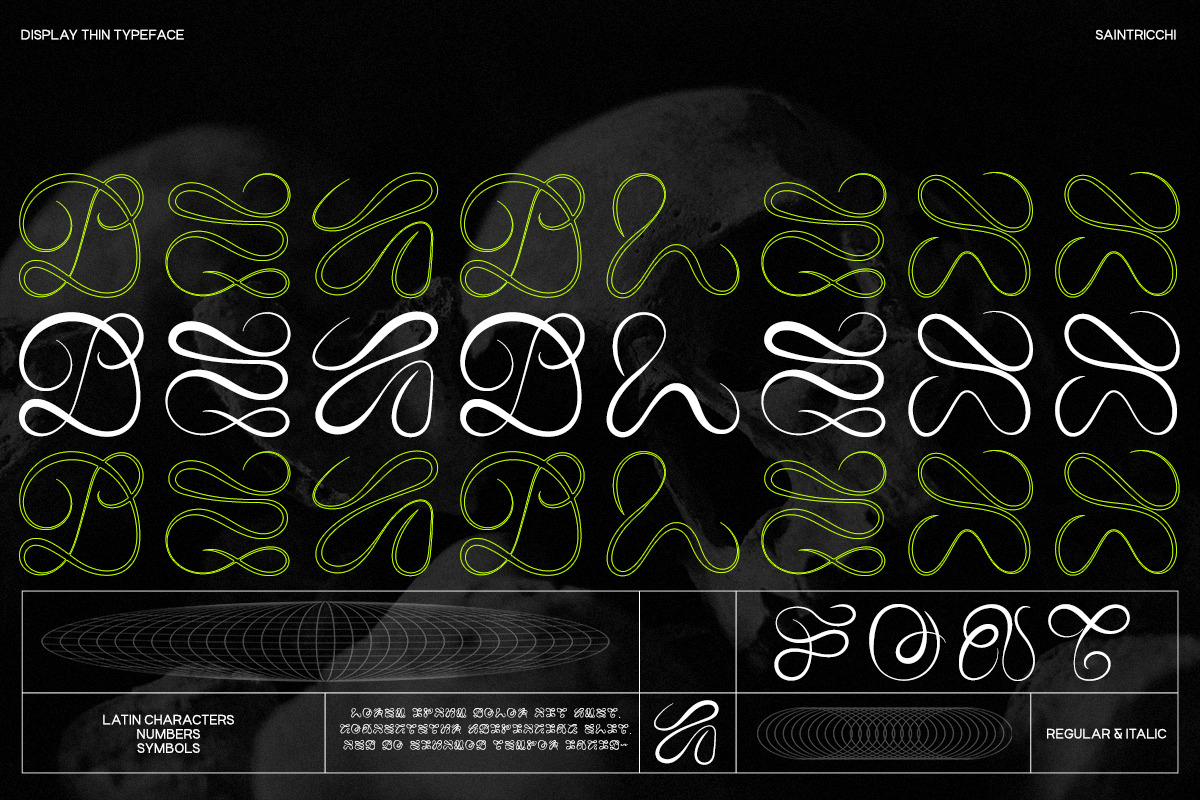
Deadless - Display Typeface
Introducing Deadless Typeface: Unleash your creativity with Deadless, the font that combines thin lines, abstract design, and a perfect balance for logos, titles, covers, and posters.
Let Deadless be the voice of your design, leaving a lasting impression with its striking and artistic appeal.
- Regular + Italic
- Latin alphabet: A-Z
- Numbers, Base symbols